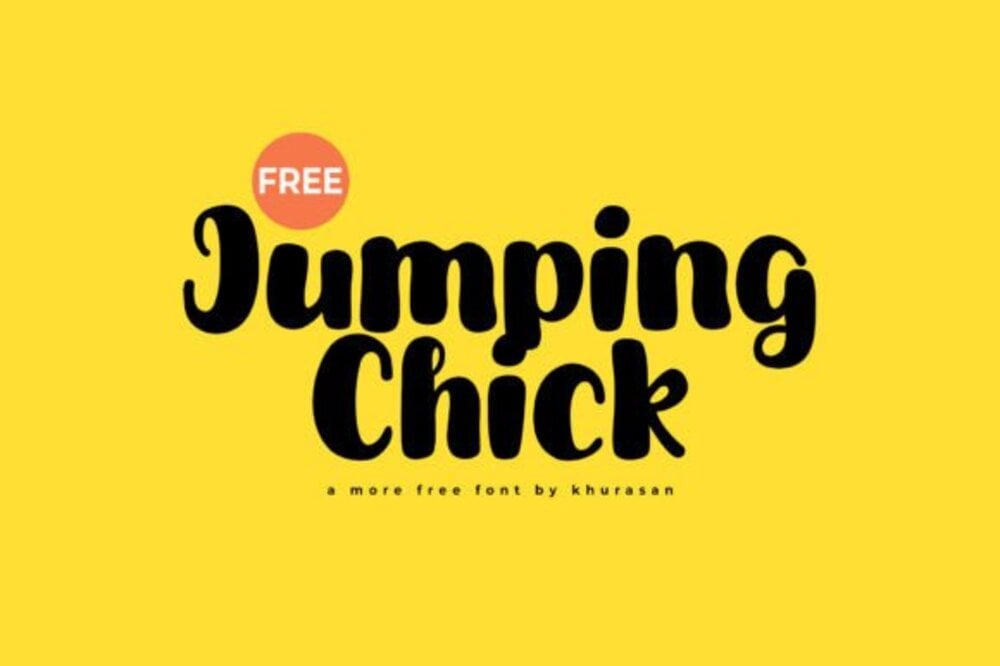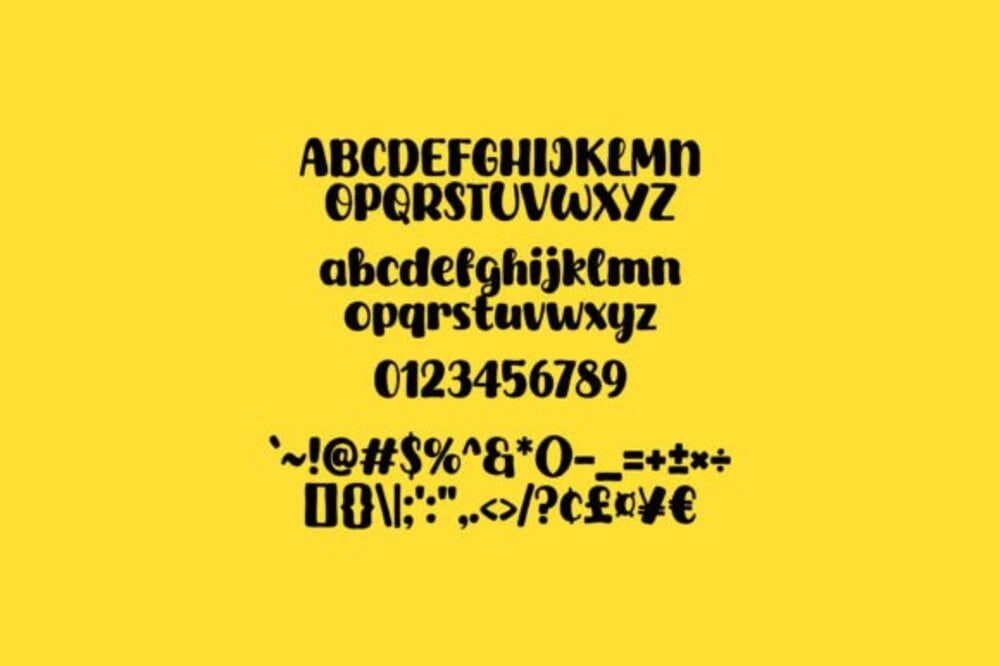
Jumping Chick Font
Jumping Chick is a lively and whimsical display font, brimming with playful energy and charm. Its bouncy letterforms and quirky strokes evoke a sense of fun and creativity, making it perfect for children’s projects, greeting cards, and lighthearted branding. With a natural, carefree vibe, Jumping Chick adds a touch of joy and personality to any design that needs a cheerful boost.